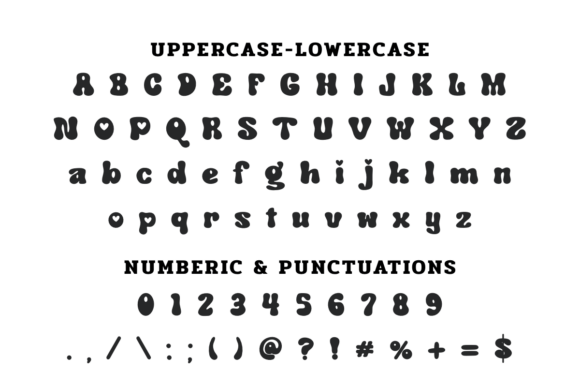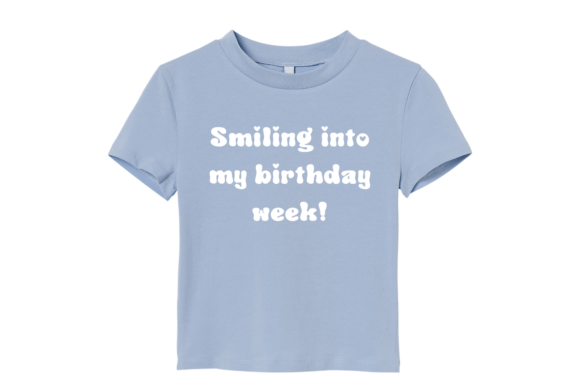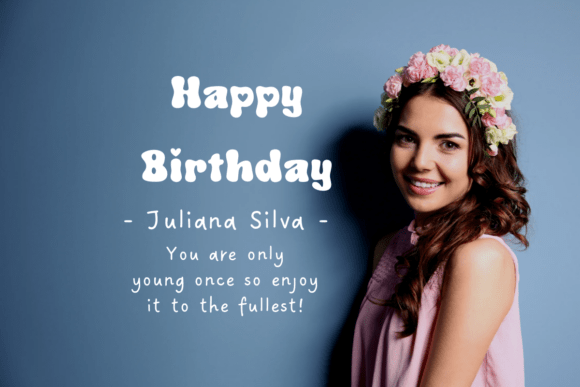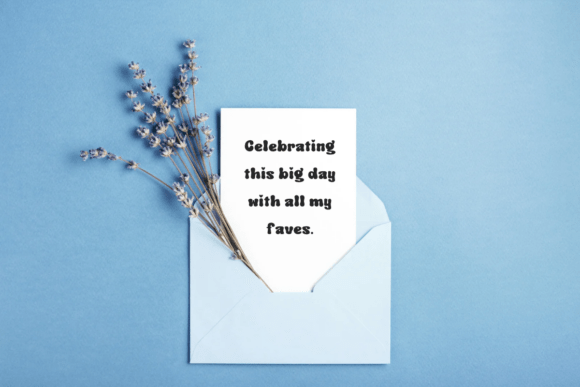
Happy Birthday Font: Adding a Touch of Celebration to Your Designs
The Happy Birthday font is a fun and decorative typeface that can add a touch of celebration to any design project. Whether you’re a designer, crafter, or simply someone who loves to get creative, this font is sure to bring a smile to your face. In this article, we’ll explore the many uses of the Happy Birthday font and provide you with inspiration for incorporating it into your work.
A Font for Every Occasion
As its name suggests, the Happy Birthday font is perfect for birthday-themed designs. However, its versatility means it can be used for a wide range of projects beyond just birthdays. From notes and diary entries to greeting cards and gift tags, this font is ideal for adding a playful touch to any paper-based project. You can also use it to create eye-catching banners, social media posts, and other digital content that requires a bit of personality.
Design Ideas to Get You Started
So, what can you create with the Happy Birthday font? The possibilities are endless! Here are a few ideas to get you started:
• Greeting Cards: Use the Happy Birthday font to create custom greeting cards for birthdays, anniversaries, and other special occasions.
• Banners: Design a colorful banner with the Happy Birthday font to hang at a party or special event.
• Mugs and Water Bottles: Add a fun design to a mug or water bottle using the Happy Birthday font.
• Social Media Posts: Use the Happy Birthday font to create eye-catching social media posts for birthdays and other celebrations.
• Stationery: Add a touch of personality to your stationery with the Happy Birthday font.
• T-Shirts and Hoodies: Design a custom t-shirt or hoodie with the Happy Birthday font for a fun and unique gift.
Why Designers and Crafters Love the Happy Birthday Font
So, why is the Happy Birthday font so popular among designers and crafters? Here are just a few reasons:
• Easy to Read: Despite its decorative nature, the Happy Birthday font is surprisingly easy to read, making it perfect for designs that require a bit of text.
• Highly Versatile: The Happy Birthday font can be used for a wide range of projects, from digital designs to paper-based crafts.
• Fun and Playful: The Happy Birthday font adds a touch of whimsy and fun to any design, making it perfect for projects that require a bit of personality.
Tips for Using the Happy Birthday Font
Here are a few tips for getting the most out of the Happy Birthday font:
• Experiment with Colors: The Happy Birthday font looks great in a variety of colors, so don’t be afraid to experiment and find the perfect hue for your design.
• Pair with Other Fonts: Try pairing the Happy Birthday font with other fonts to create a unique and eye-catching design.
• Use it Sparingly: While the Happy Birthday font is fun and playful, it can be overwhelming if used too much. Use it sparingly to add a touch of personality to your design.
The Happy Birthday font is a fun and versatile typeface that can add a touch of celebration to any design project. Whether you’re a designer, crafter, or simply someone who loves to get creative, this font is sure to bring a smile to your face. With its ease of use, high versatility, and playful personality, the Happy Birthday font is perfect for a wide range of projects, from greeting cards and banners to social media posts and custom gifts. So why not give it a try and see what amazing designs you can create?